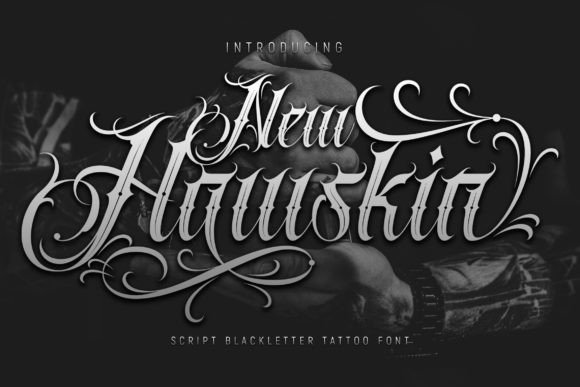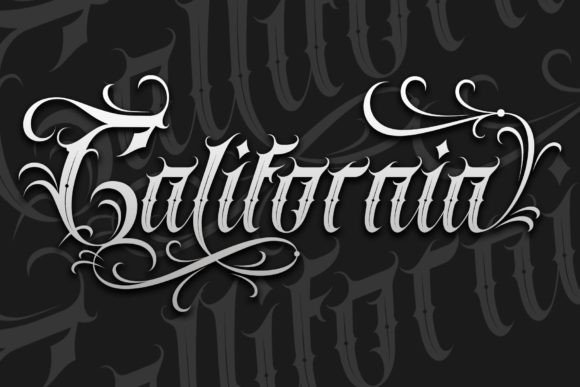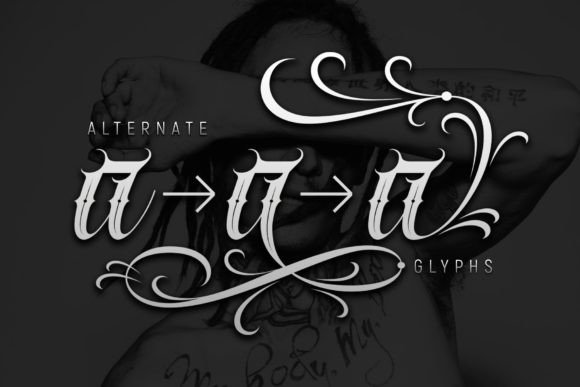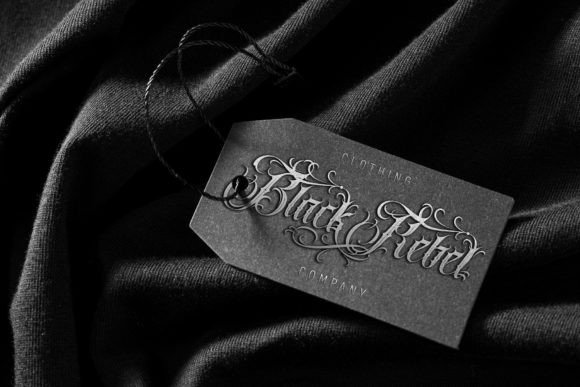
New Hawskin Font
About the New Hawskin Font
Step up your design game with New Hawskin Font, a font that exudes confidence and style. New Hawskin is a contemporary blackletter tattoo font that feels right at home on logos, t-shirt designs, posters, flyers, and other brand identity material. It’s an excellent typeface to integrate your artwork with. This font design has a great design that’s perfect for all kinds of design work from digital designs, greeting cards, and even T-Shirt designs as well.
Its bold, rebellious character makes it ideal for projects needing a strong visual impact, such as edgy apparel branding, rock band logos, or tattoo parlor signage. Avoid using New Hawskin for body text or lengthy paragraphs; its intricate details become illegible at smaller sizes.
Pair it with a clean sans-serif like Montserrat for contrast, or a simple serif like Playfair Display for a touch of classic elegance. For a more modern feel, consider pairing it with a geometric sans-serif like Futura.
The font’s inherent energy best suits brands projecting a confident, slightly aggressive personality. It’s less suitable for projects requiring sophistication or minimalism.